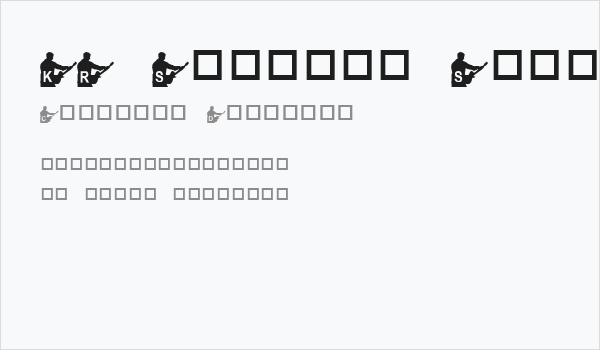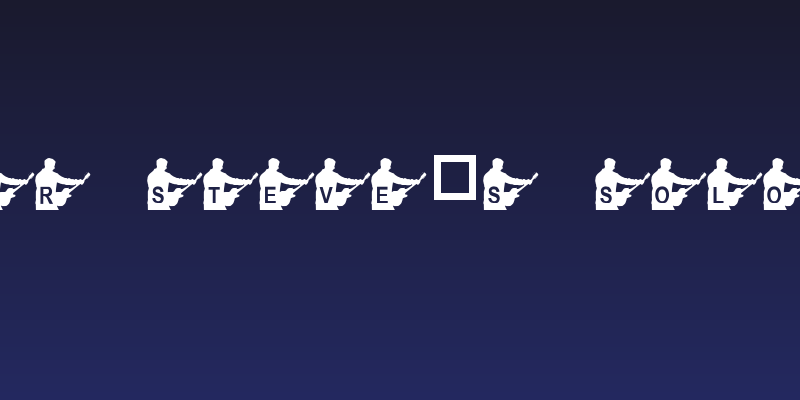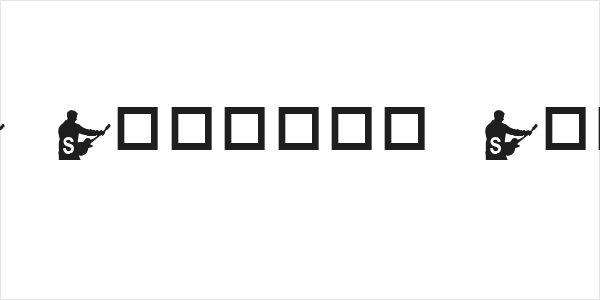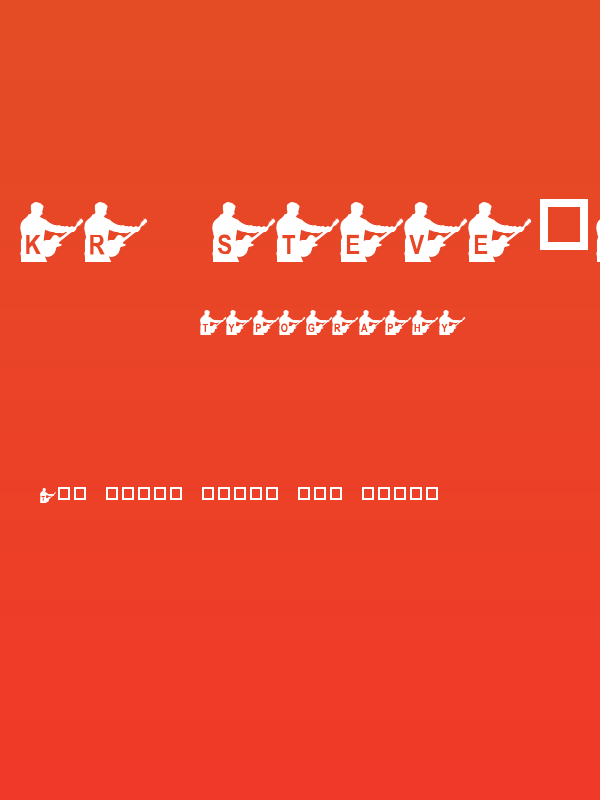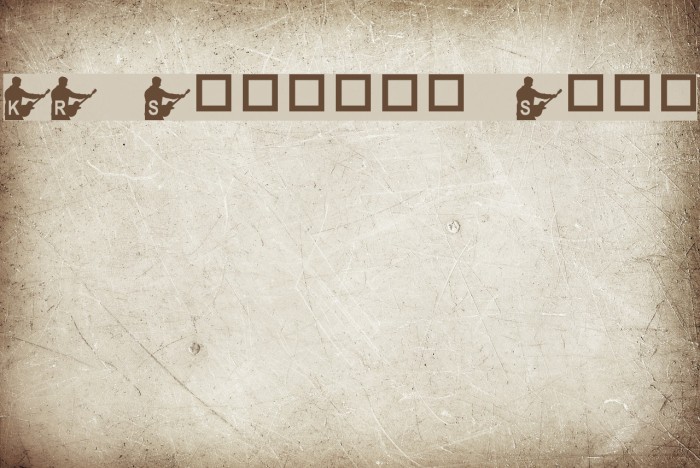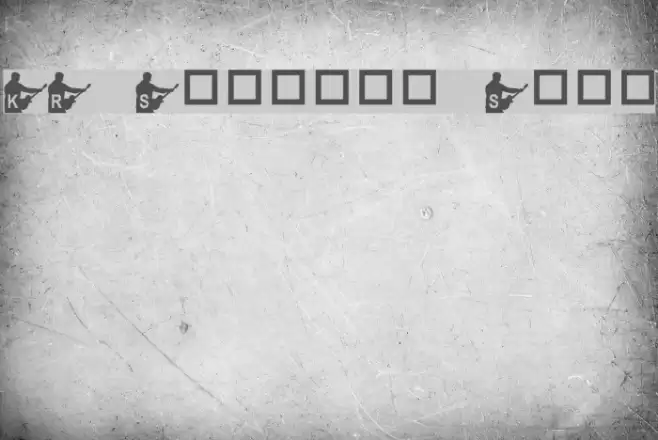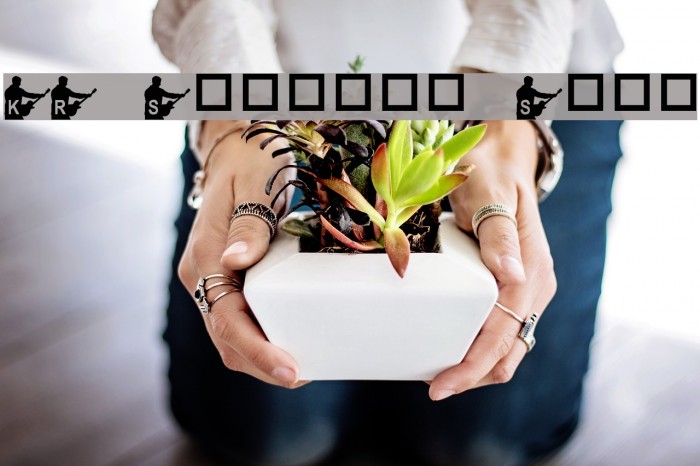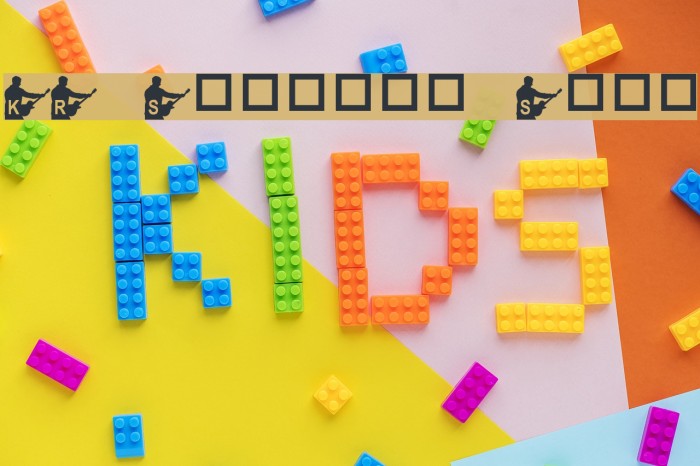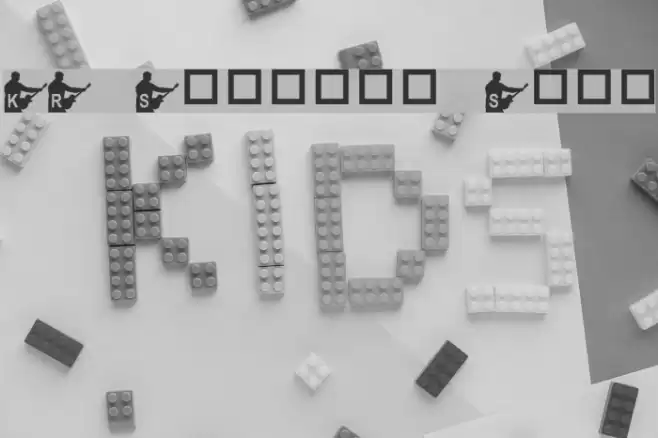
KR Steve's Solo Font
KR Steve's Solo Description
This font features a unique design where each uppercase letter is integrated into the silhouette of a person playing a guitar. The letters are bold and prominent, making them stand out against the detailed silhouette. The font does not include lowercase letters, numbers, or special characters, which are represented by empty squares. This design is highly decorative and thematic, focusing on a musical motif that is both playful and artistic.
| Use Case | Logos, Posters, Creative Displays |
| Proposed Projects | Ideal for music-related projects, band posters, album covers, or any creative work that requires a musical theme. |